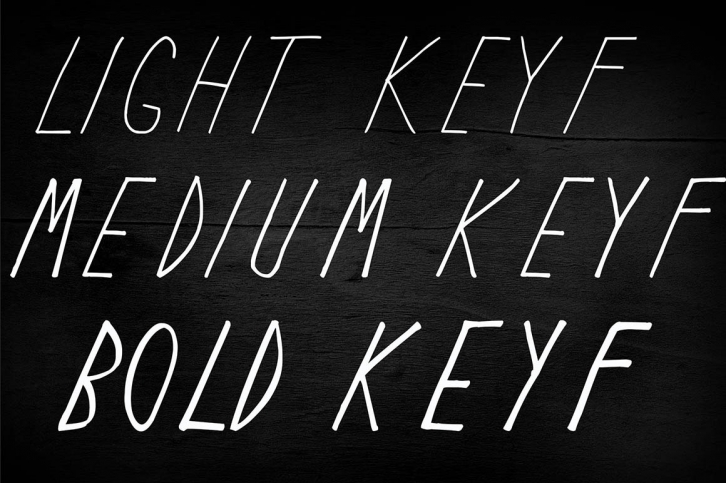
Keyf Team is a beautiful font that was designed by MagicHandStudio. It's a great choice for designers and creatives who need such a font. It was released on June 2, 2016 and the file size is 9.66 MB. Keyf Team may give a more youthful, expressive and casual look to your project. It is a very beautiful, refined, elegant, and high-quality font.